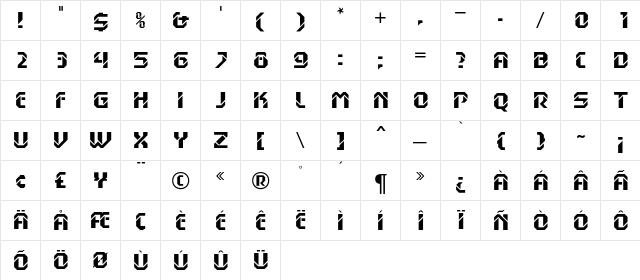
Hansson Stencil MN Bold
Design Context for Hansson Stencil MN Typeface
Hansson Stencil MN has the rough pragmatism of spray-painted stencil signage, adding a raw, street-level authenticity to designs. The heavy weight commands attention and anchors typographic hierarchies.
Ideal for industrial branding, streetwear, military-adjacent aesthetics, and urban signage projects.
Pro Tip: Pair Hansson Stencil MN with raw, utilitarian design elements — exposed concrete textures, flat colour, and minimal ornamentation suit it well.